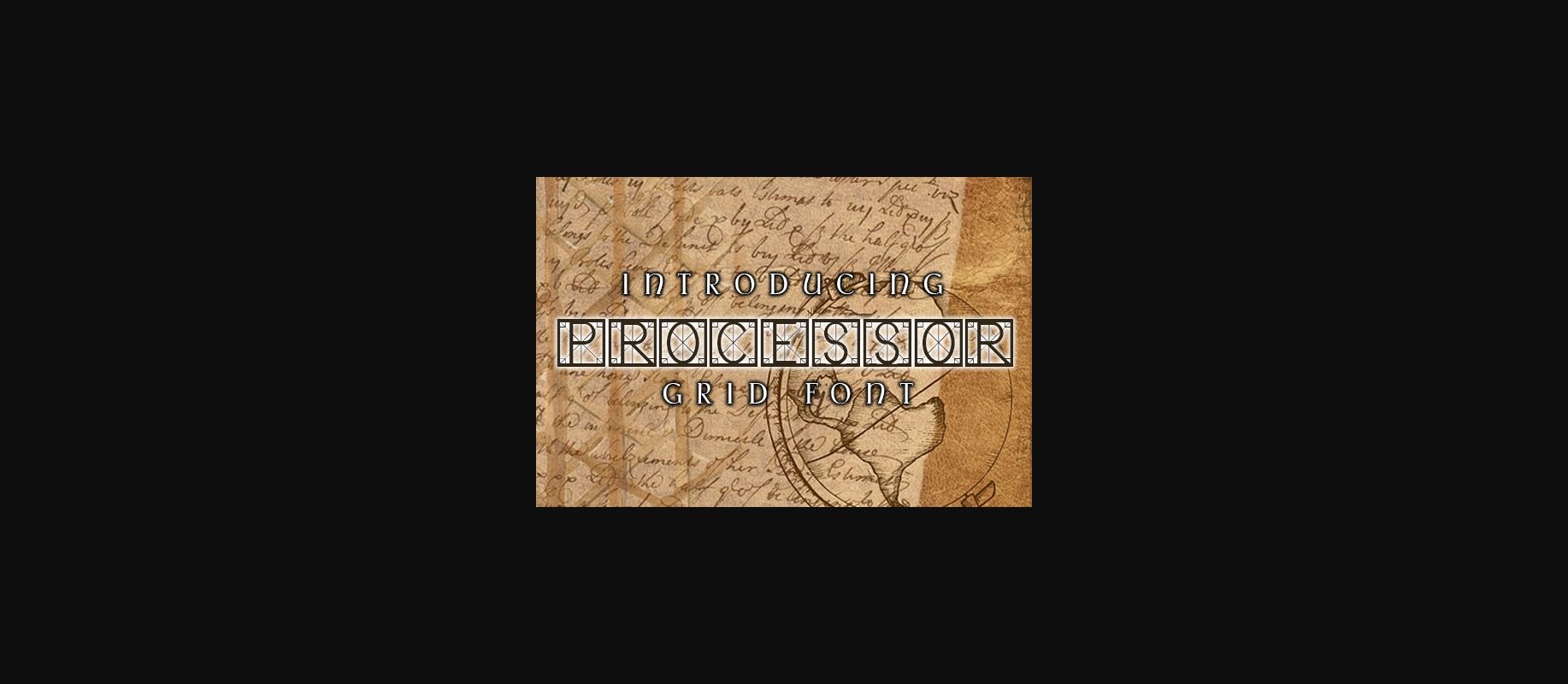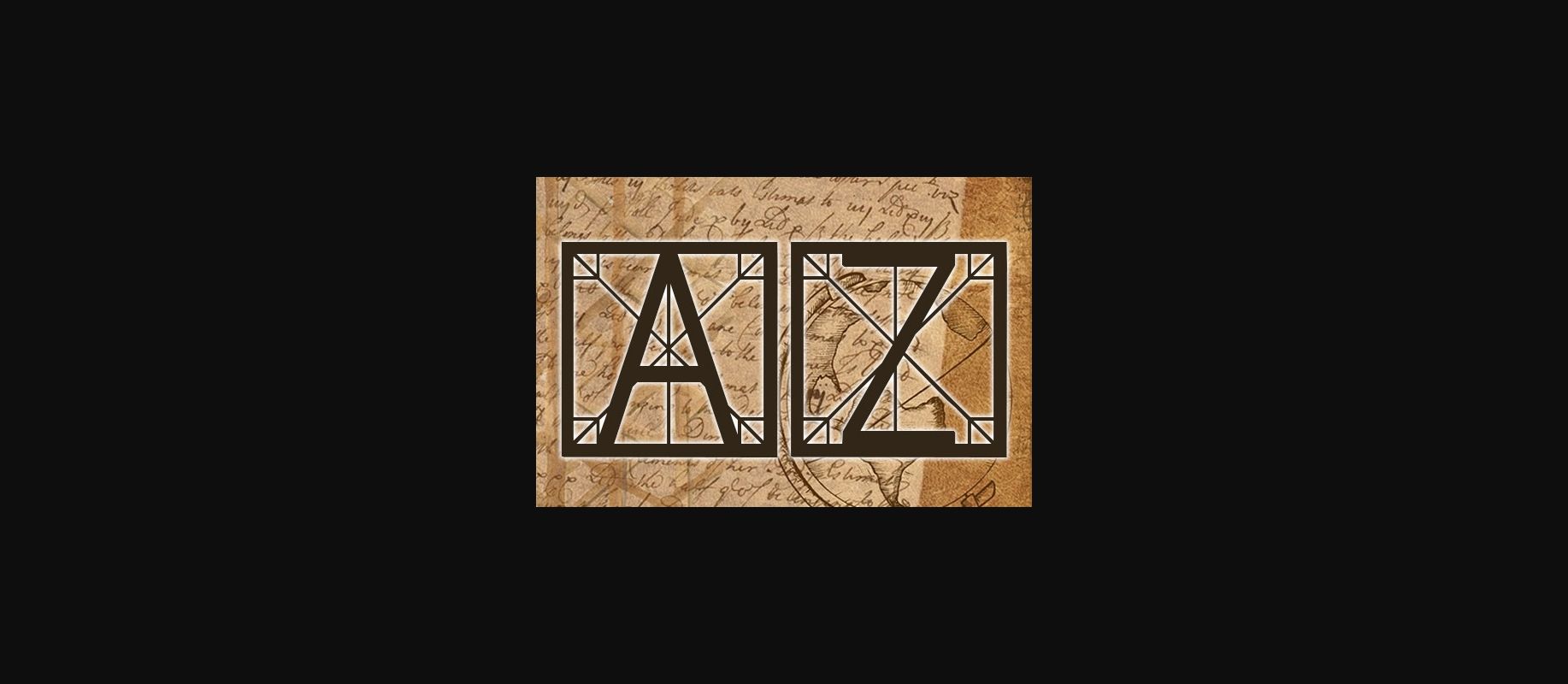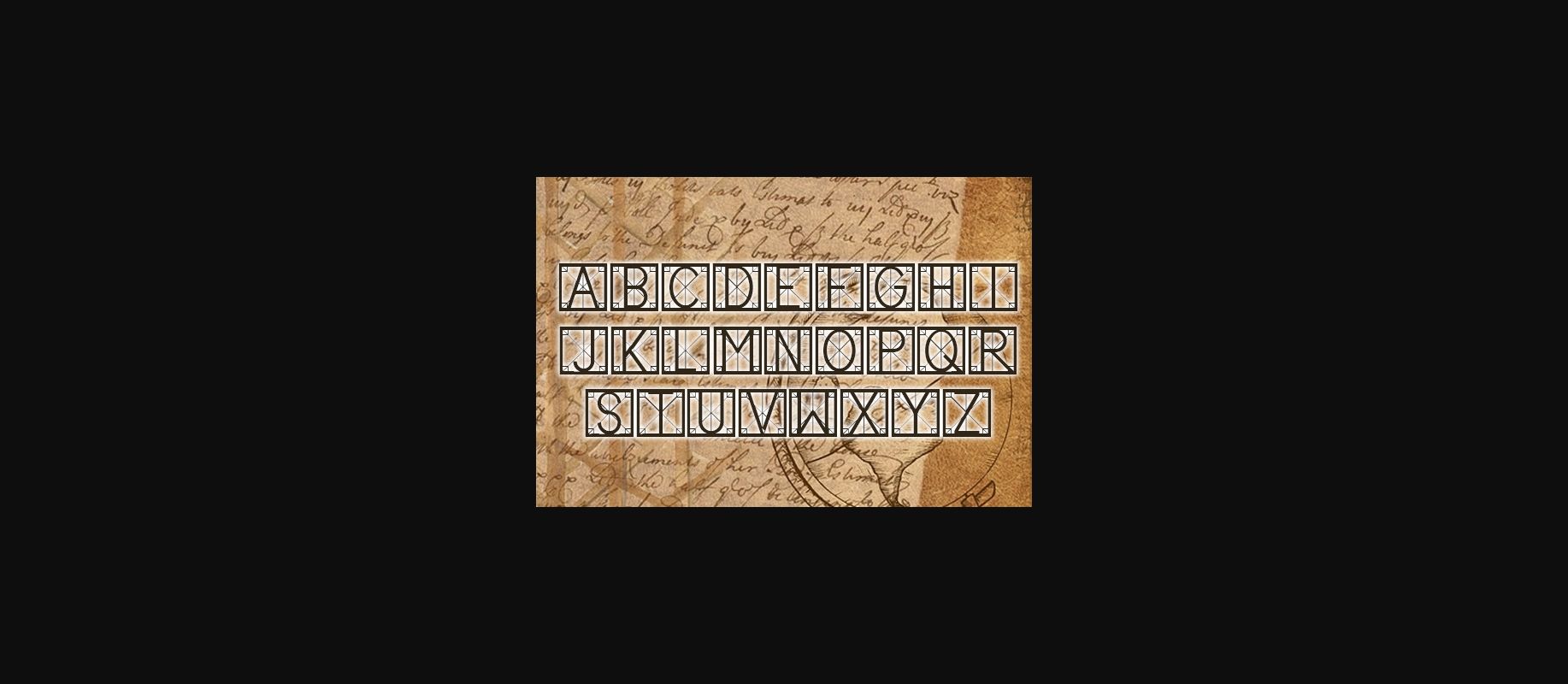
Processor Font
About Processor Font
Processor is stylish grid font that will look awesome on any of Your designs. Use this font on posters, flyers, t-shirts social media, banners and more.